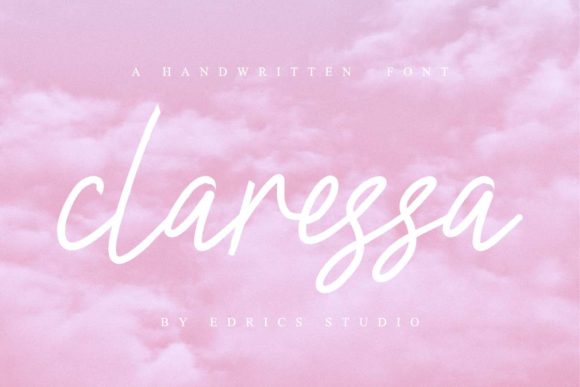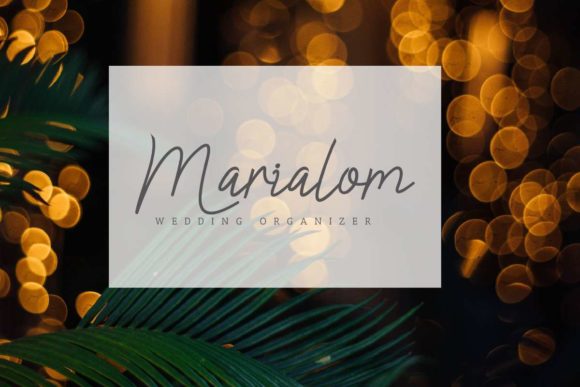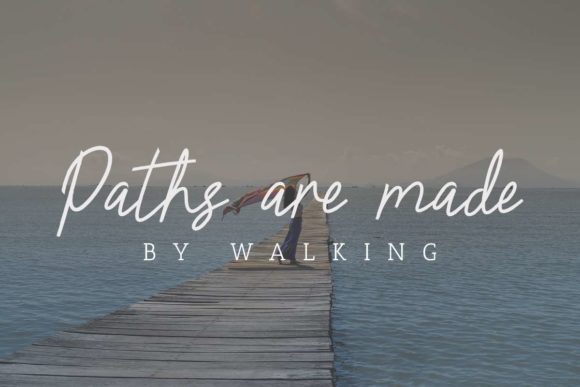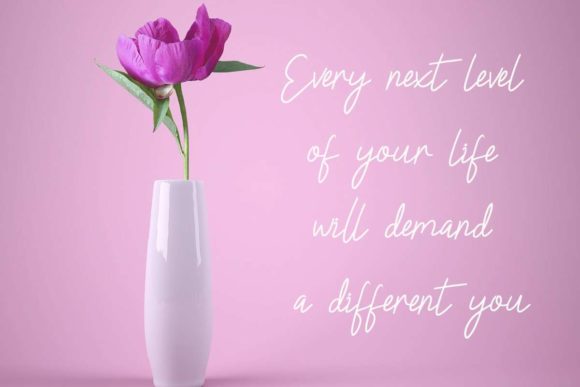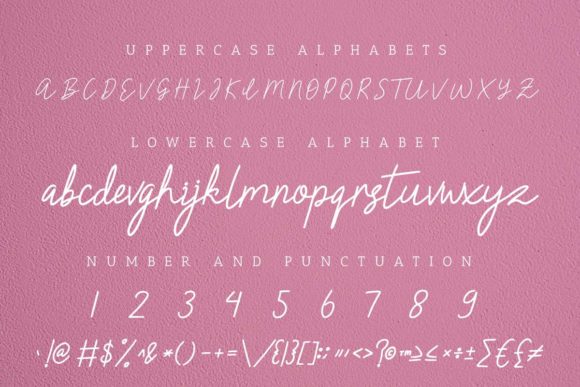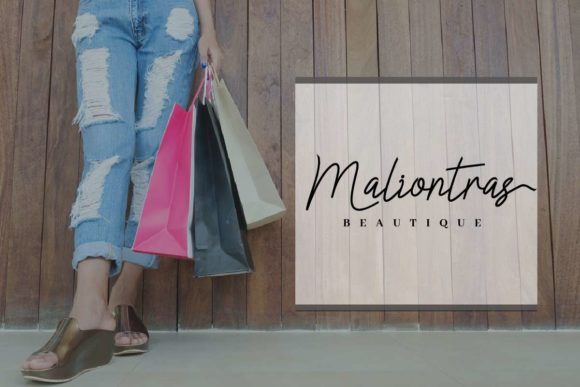
Discover the Timeless Charm of Claressa Font
Are you a designer or crafter looking for a font that exudes simplicity, authenticity, and timeless charm? Look no further than Claressa Font. This beautiful script font is designed to ignite your creativity and add a touch of elegance to your projects. In this article, we’ll dive into the world of Claressa Font and explore its features, benefits, and uses.
What is Claressa Font?
Claressa Font is a simple, yet stunning script font that is full of authenticity. Its classic design makes it perfect for a wide range of projects, from branding and advertising to packaging and crafts. The font’s timeless charm is sure to captivate your audience and leave a lasting impression.
Features of Claressa Font
So, what makes Claressa Font so special? Here are some of its key features:
• Simple yet elegant design: Claressa Font has a clean and simple design that makes it easy to read and use.
• Authentic feel: The font has an authentic feel that gives it a unique and distinctive look.
• Timeless charm: Claressa Font’s classic design ensures that it will never go out of style.
• Highly versatile: The font is suitable for a wide range of projects, from digital to print.
Benefits of Using Claressa Font
Using Claressa Font in your projects can bring numerous benefits. Here are some of the advantages of using this beautiful script font:
• Enhance your brand’s identity: Claressa Font can help you create a unique and memorable brand identity.
• Add a touch of elegance: The font’s classic design can add a touch of sophistication and elegance to your projects.
• Increase readability: Claressa Font’s simple and clean design makes it easy to read, even at small sizes.
• Stand out from the crowd: The font’s unique and authentic feel can help you stand out from the competition.
Uses of Claressa Font
Claressa Font is a highly versatile font that can be used in a wide range of projects. Here are some ideas to get you started:
• Branding and advertising: Use Claressa Font to create eye-catching logos, posters, and advertisements.
• Packaging design: Add a touch of elegance to your product packaging with Claressa Font.
• Crafts and DIY projects: Use the font to create beautiful and unique crafts, such as handmade cards and gift tags.
• Digital projects: Claressa Font can be used in digital projects, such as website design, social media graphics, and email marketing campaigns.
Tips for Using Claressa Font
Here are some tips for using Claressa Font in your projects:
• Use it sparingly: Use Claressa Font sparingly to add emphasis and create visual interest.
• Experiment with colors: Try pairing Claressa Font with different colors to create a unique and eye-catching look.
• Mix and match: Experiment with pairing Claressa Font with other fonts to create a unique and interesting look.
In conclusion, Claressa Font is a beautiful and versatile script font that can add a touch of elegance and sophistication to your projects. Its timeless charm and authentic feel make it perfect for a wide range of applications, from branding and advertising to packaging and crafts. With its simple yet stunning design, Claressa Font is sure to ignite your creativity and help you create stunning projects.